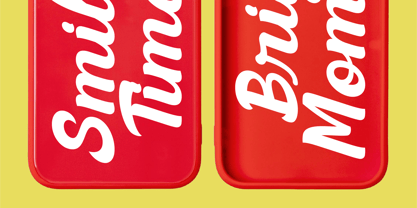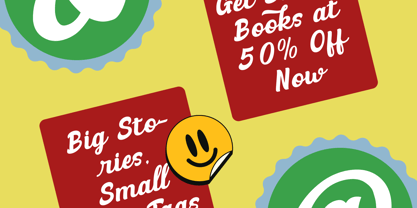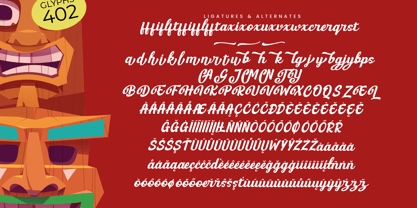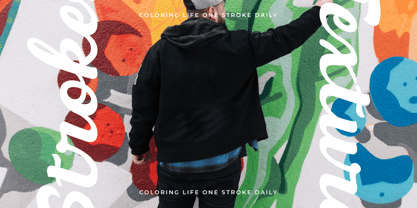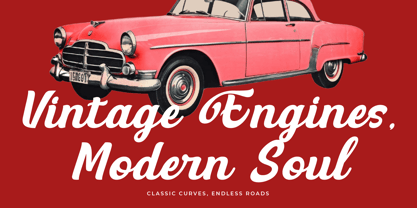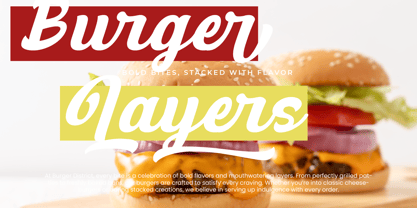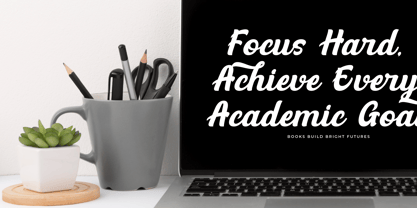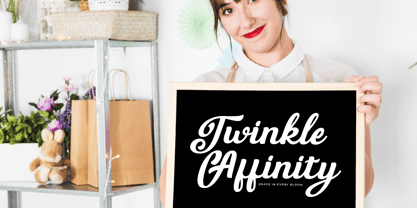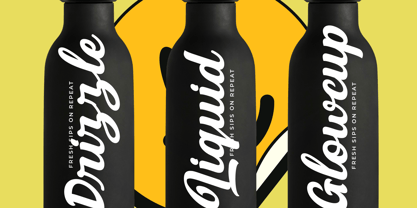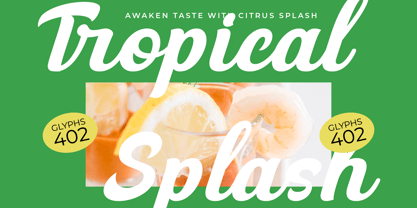
America League
by Timelesstype Studio
The America League Font Family was designed by Heru Utama Putra and published by Timelesstype Studio. America League contains 2 styles and family package options. More about this family
America League - Modern Bold Script Font , from Timelesstype, Suitable for any projects such as: logos, branding projects, homeware designs, product packaging, mugs, quotes, posters, shopping bags, t-shirts, book covers, name card, invitation cards, greeting cards, label, photography, watermark, special events, and all your other luxury and beautiful projects that need a Luxury Script taste.